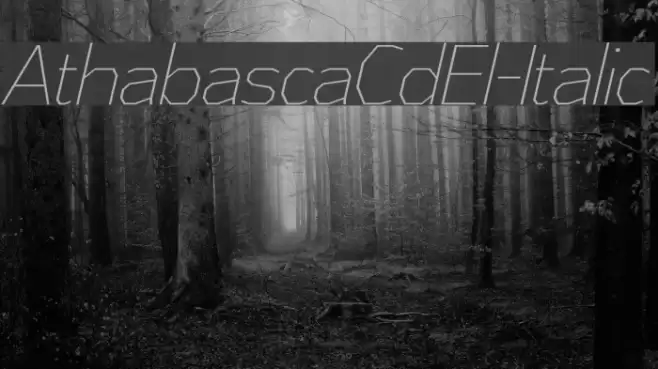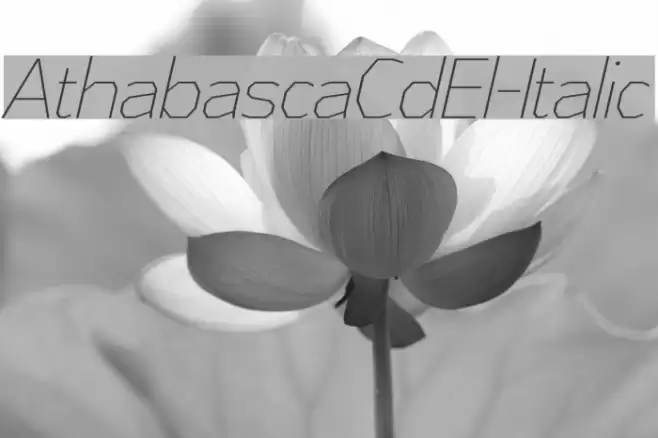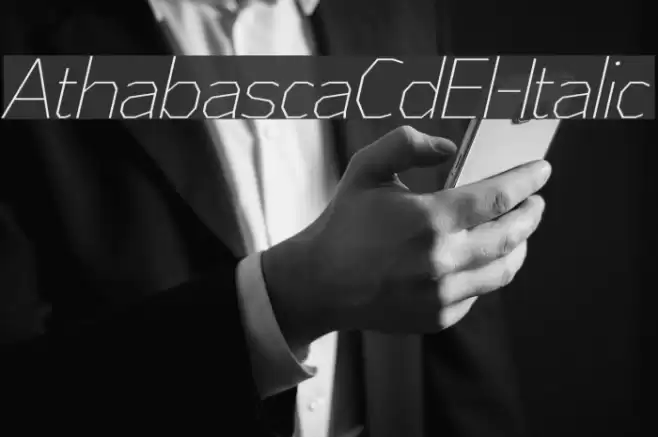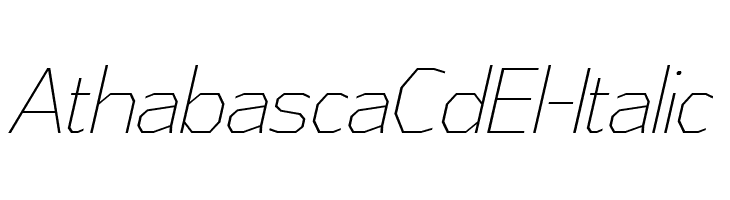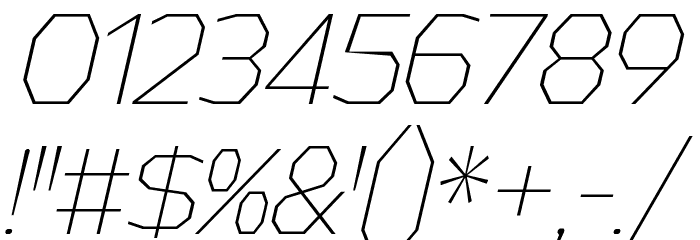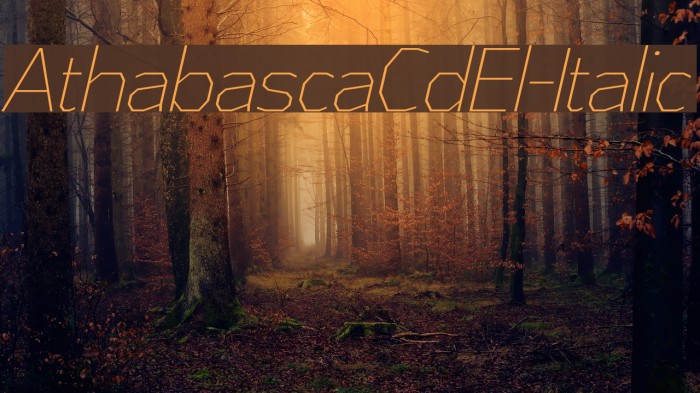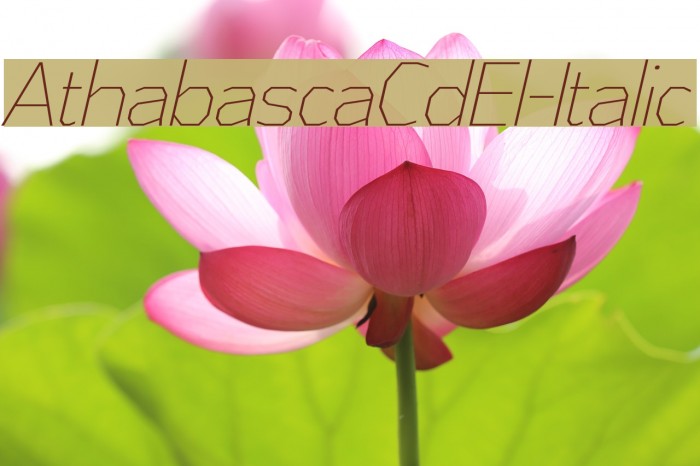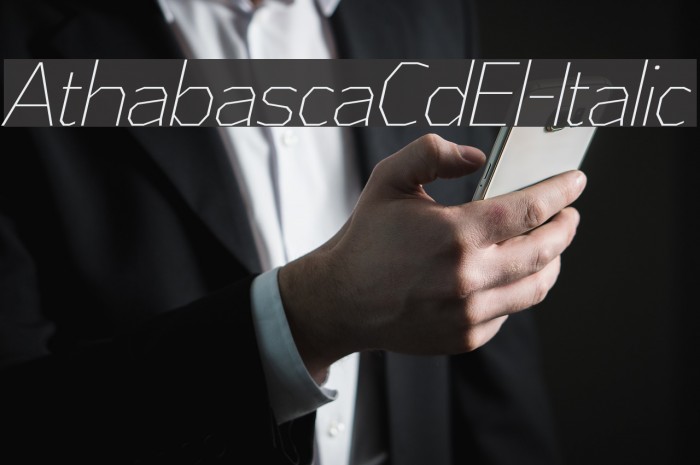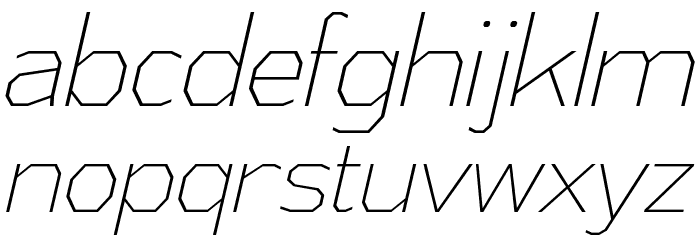
AthabascaCdEl-Italic Font
AthabascaCdEl-Italic Description
This font features a geometric and angular design, characterized by its sharp edges and clean lines. The uppercase and lowercase letters maintain a consistent slant, giving it an italicized appearance. The numerals and special characters follow the same angular style, creating a cohesive and modern look. The font's structure is reminiscent of technical or architectural drawings, making it suitable for projects that require a precise and contemporary aesthetic. Its unique style stands out, making it ideal for attention-grabbing headlines or logos.
A geometric, angular font with a consistent italic slant and modern appeal from Uncategorized fonts.
- Proposed Projects: Ideal for architectural designs, technical documents, modern branding, and innovative product packaging.